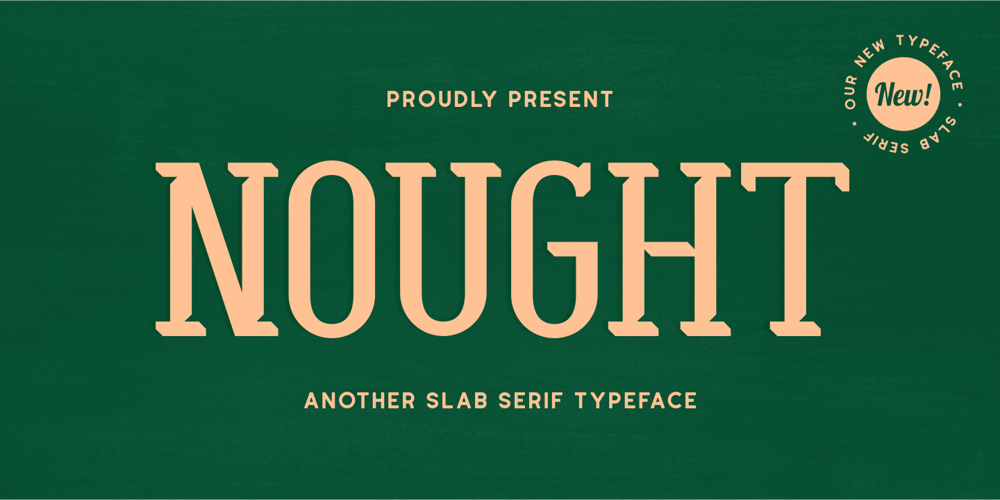
Nought Font Family was designed by Muhammad Hasan and published by Fype Co. Nought contains 1 styles and family package options. Nought is another slab serif typeface, It is a display font with vintage and condensed look that perfect for branding projects, advertisements, product packaging, product designs, label, header, and any projects.